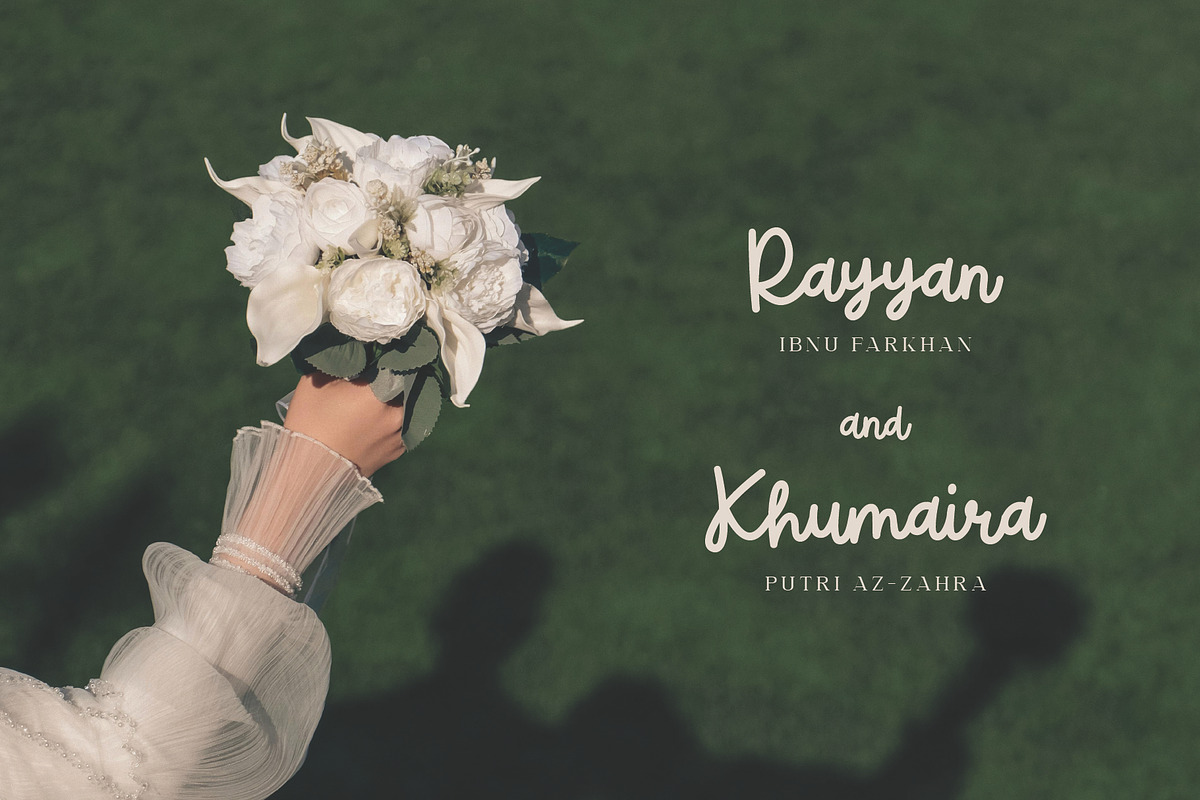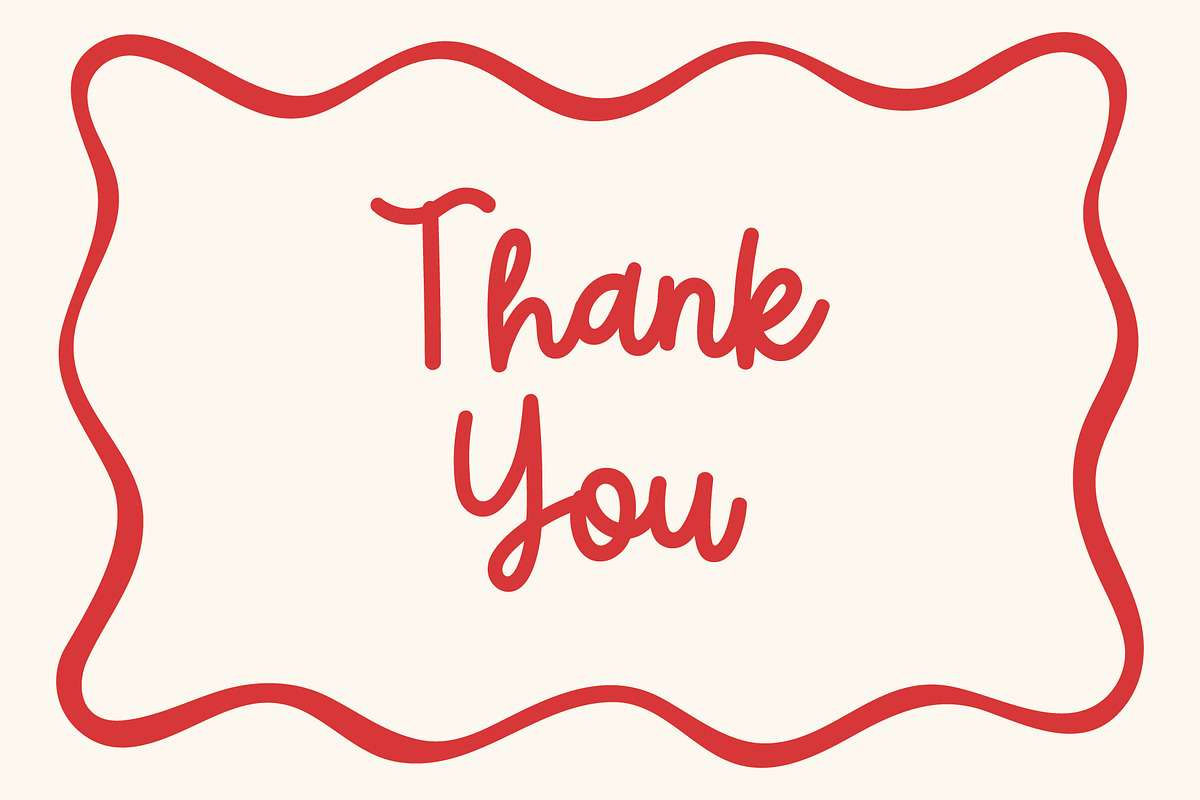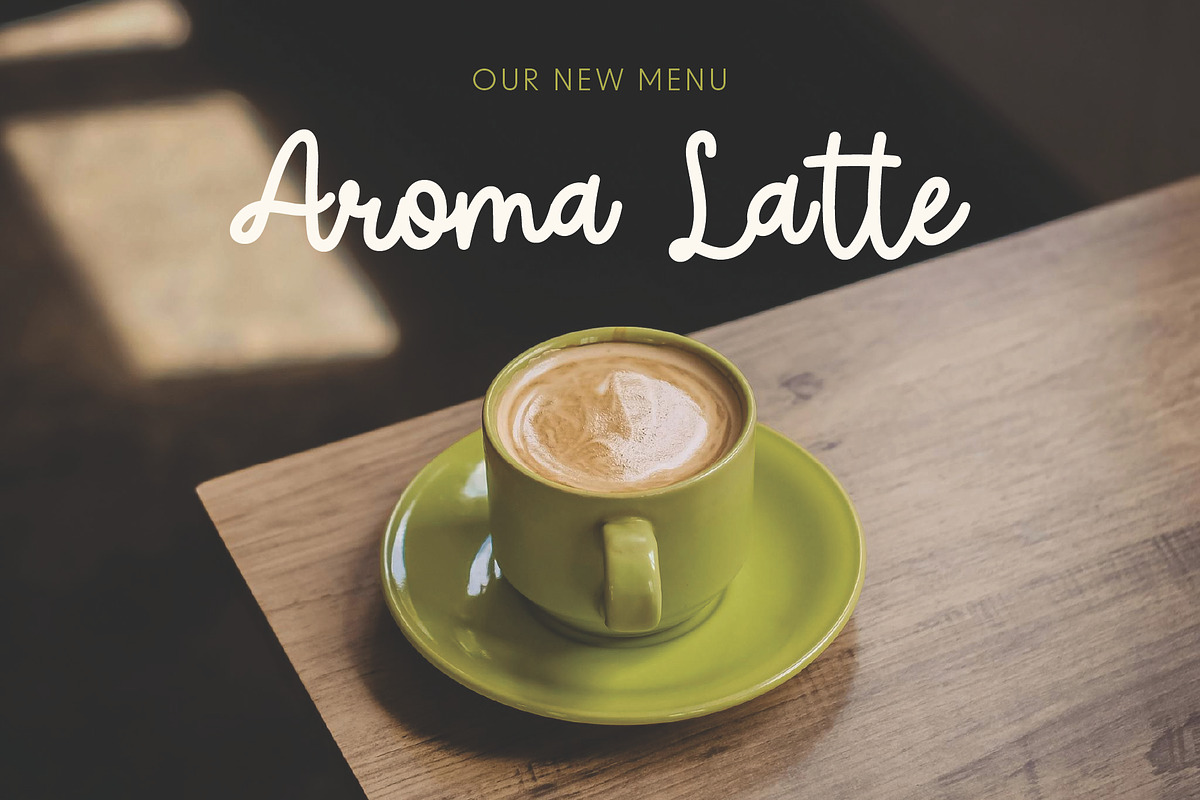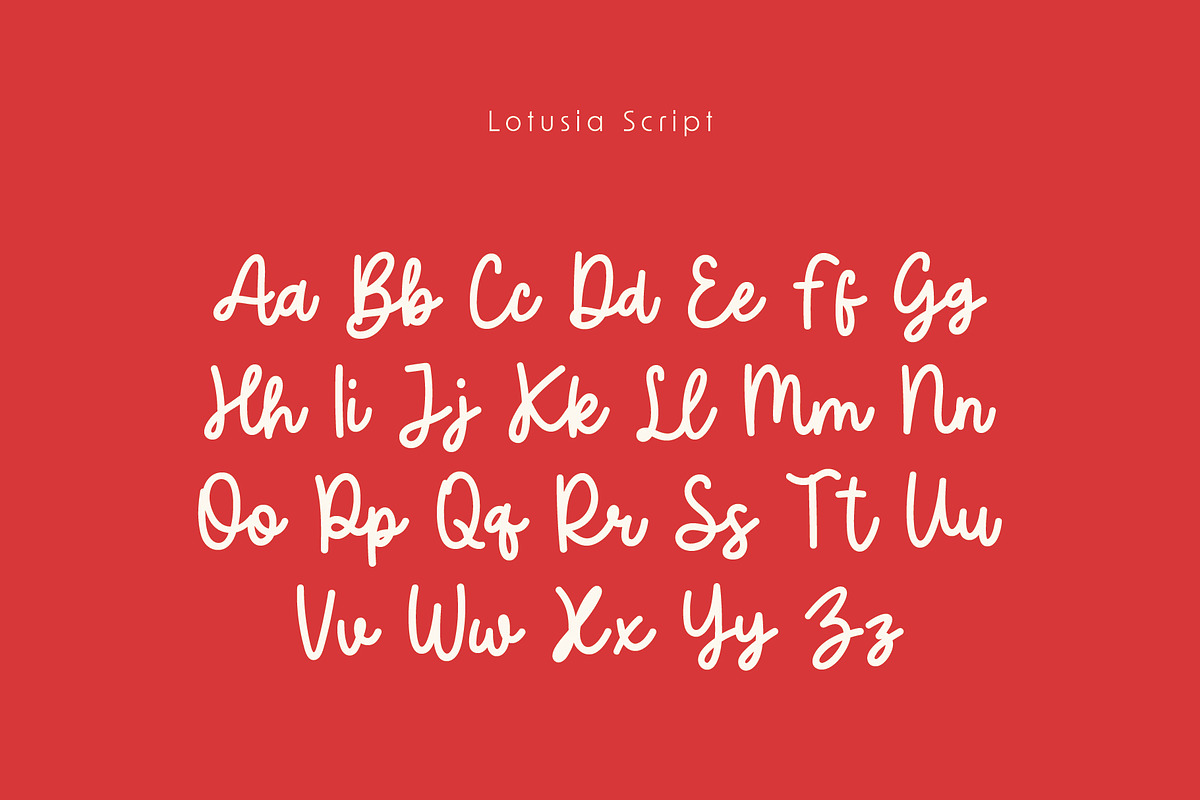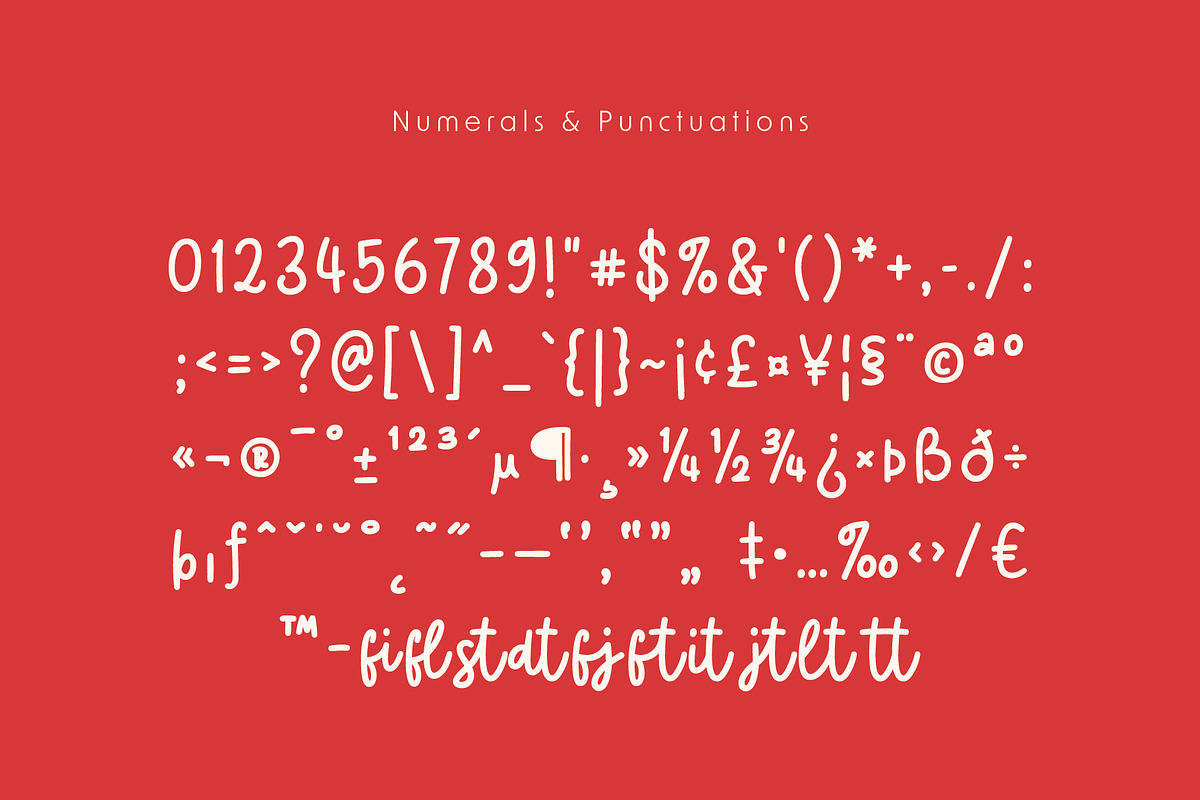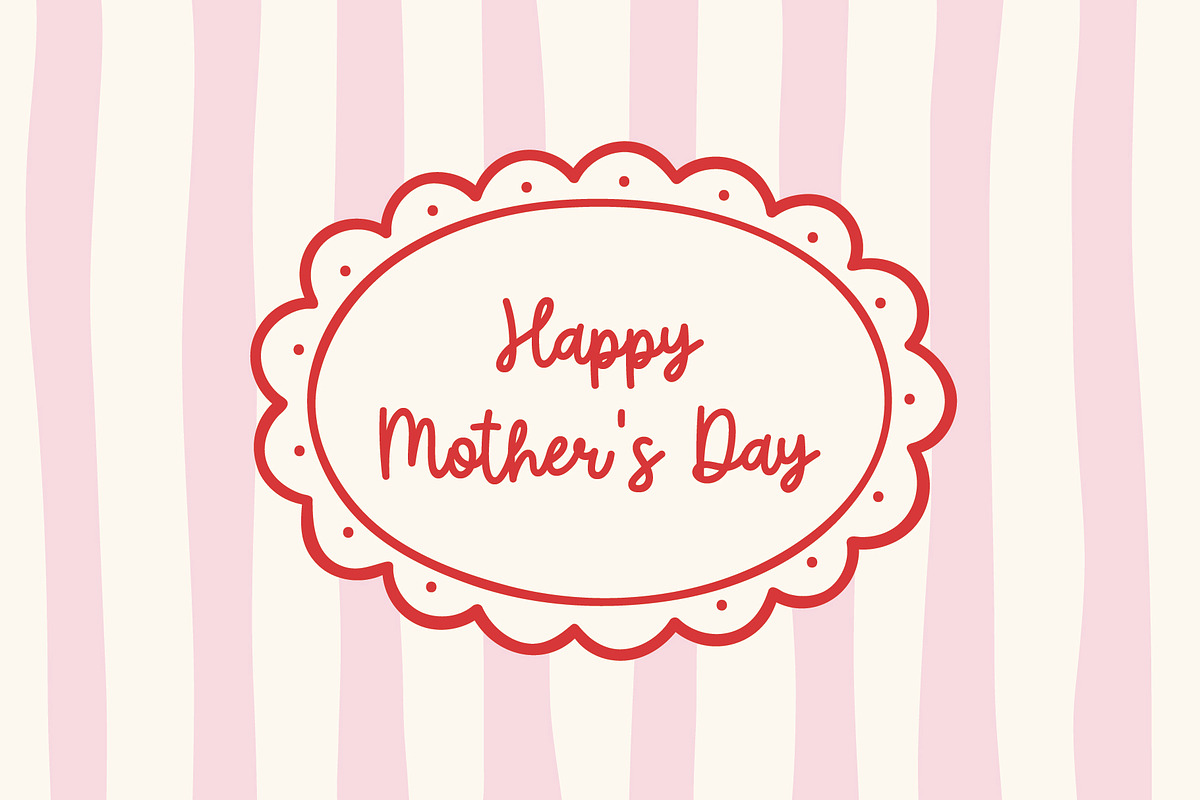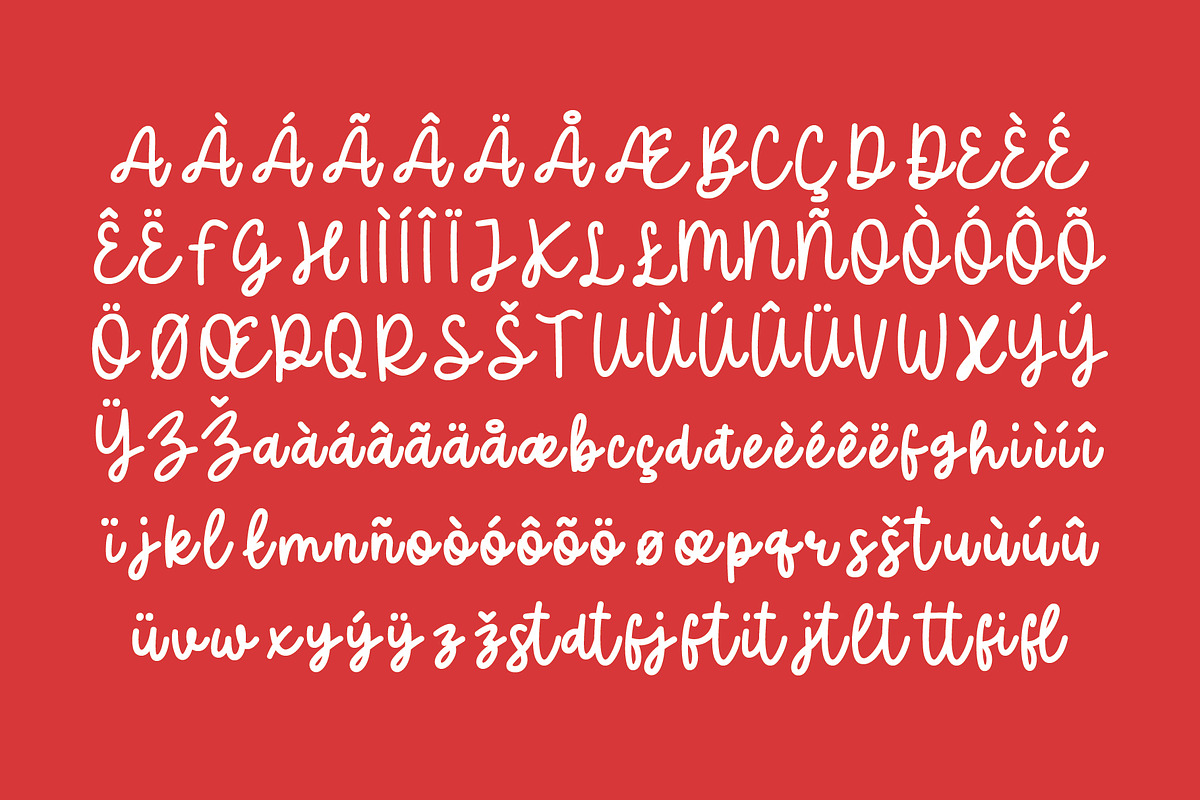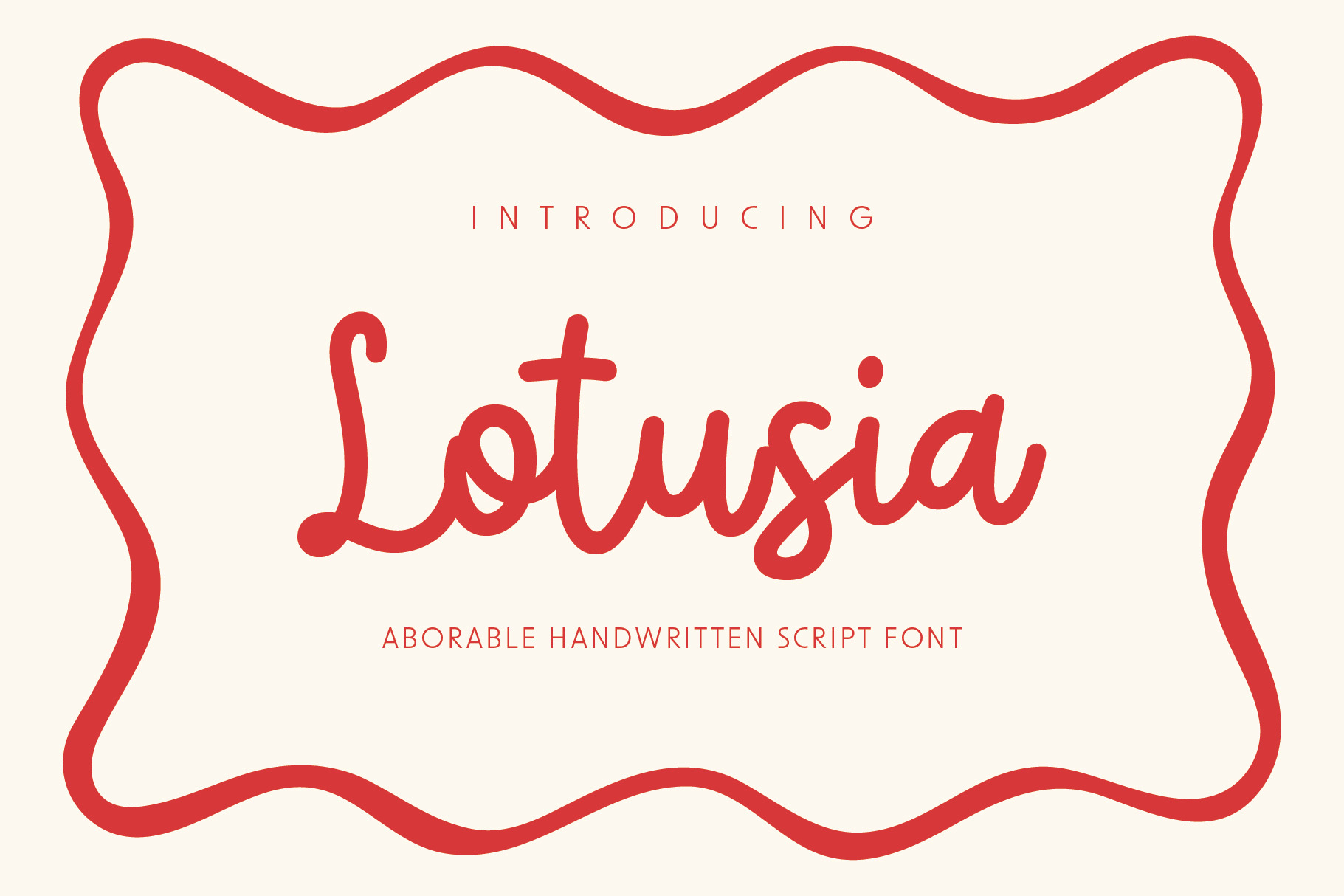
Lotusia Handwritten Script Font
Meet Lotusia Script — a bold and playful handcrafted script font bursting with personality. Each stroke dances with energy and joy. Its thick curves and flowing style bring a warm, handmade feel to every word. Use it when you want your design to look fun, creative, and full of life. Lotusia Script includes complete alphabets, numbers, and basic punctuation. It’s perfect for posters, greeting cards, logos, and packaging. Let your ideas bloom with Lotusia’s cheerful charm and turn every project into a bright, eye-catching piece!